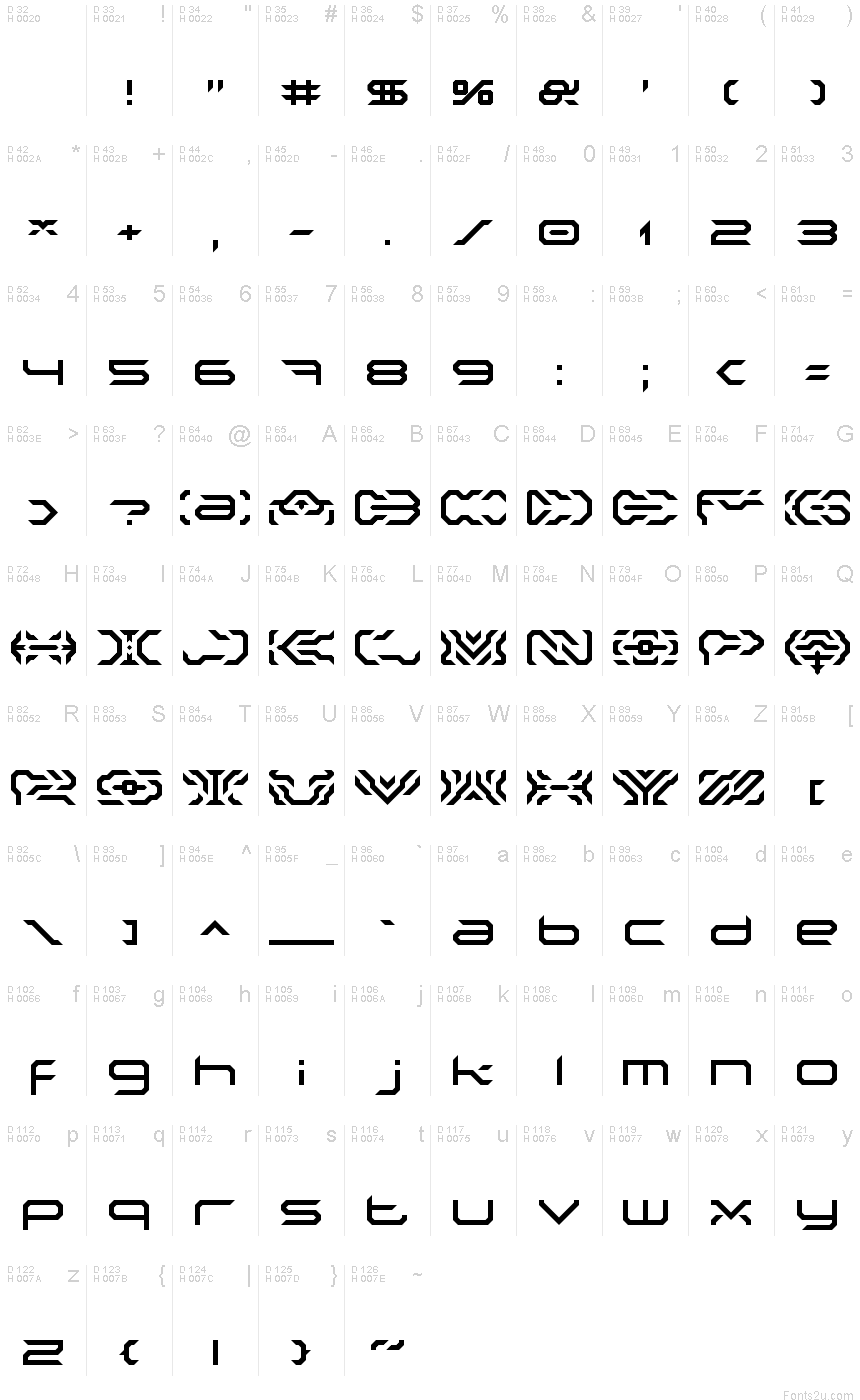
Nakki LDR from Neoqueto is a free futuristic display font with the hard-edged geometry of a custom machine alphabet. Broad horizontal runs, clipped corners, and deep angular notches give the letters a dense, interlocking silhouette, with occasional open breaks that keep the forms from becoming solid bars.
It can turn a game interface or electronic music poster into a piece of fictional hardware, especially when the lettering shares space with circuit diagrams and technical icons. The same machinery suits science-fiction merchandise and event graphics. In magazines, it suits feature openers about gaming, robotics, or speculative technology, where the type becomes part of the subject rather than neutral labeling.